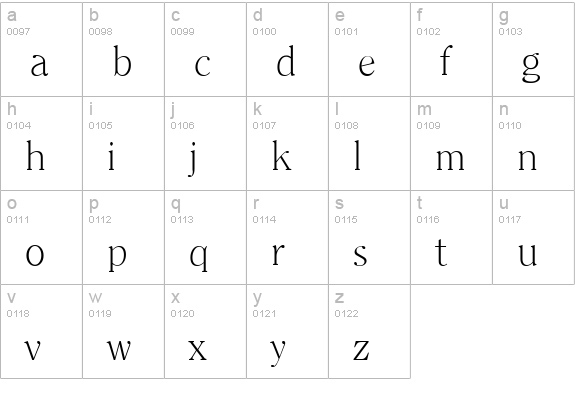
ClearfaceSerial-Xlight-Regular is the standard, neutral variant in the ClearfaceSerial typeface family \xE2\x80\x94 well suited to general body text, paragraphs, and standard typographic work.
ClearfaceSerial-Xlight-Regular is a sleek and elegant font that exudes sophistication and modernity. Its light weight and clean lines make it perfect for a wide range of design projects, from branding to editorial layouts. The font's precise letterforms and minimalistic style give off a sense of refinement and professionalism. The best part? ClearfaceSerial-Xlight-Regular is completely free to download at FontsMarket.com. This means that you can easily access this high-quality font without any cost, allowing you to elevate your designs without breaking the bank. Whether you're a graphic designer, a creative professional, or just someone looking to add a touch of class to your projects, ClearfaceSerial-Xlight-Regular is a fantastic choice that won't disappoint. Download it today and see the difference it can make in your work!